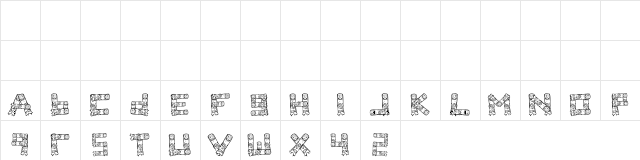
Fingered Regular Font Preview
Fingered Regular
Design Context for Fingered Typeface
Fingered is a composed and adaptable typeface that performs quietly and consistently across a wide range of design contexts.